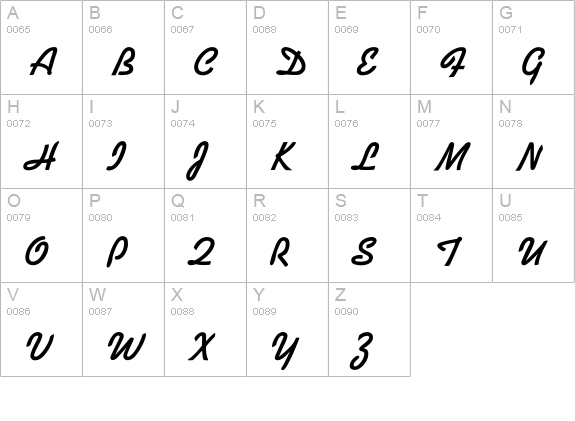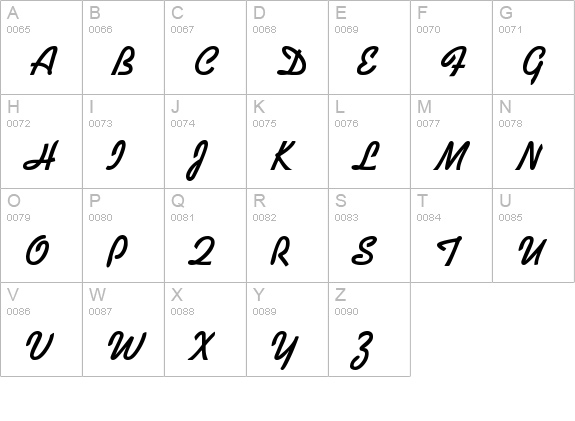
Norman Font Details
Norman font is a timeless and elegant typeface that exudes sophistication and class. With its clean lines and classic proportions, Norman font is perfect for a wide range of design projects, from formal invitations to corporate branding. Its versatility allows it to be used in both print and digital applications, making it a go-to choice for designers looking to make a bold statement. What sets Norman font apart is not only its exquisite design but also the fact that it is completely free to download. That's right, you can get your hands on this stunning font without spending a dime. Simply head over to FontsMarket.com and start incorporating Norman font into your projects today. Whether you're working on a wedding invitation, a business card, or a website design, Norman font is sure to elevate your work to the next level. Download it now and discover the endless possibilities that this beautiful font has to offer.